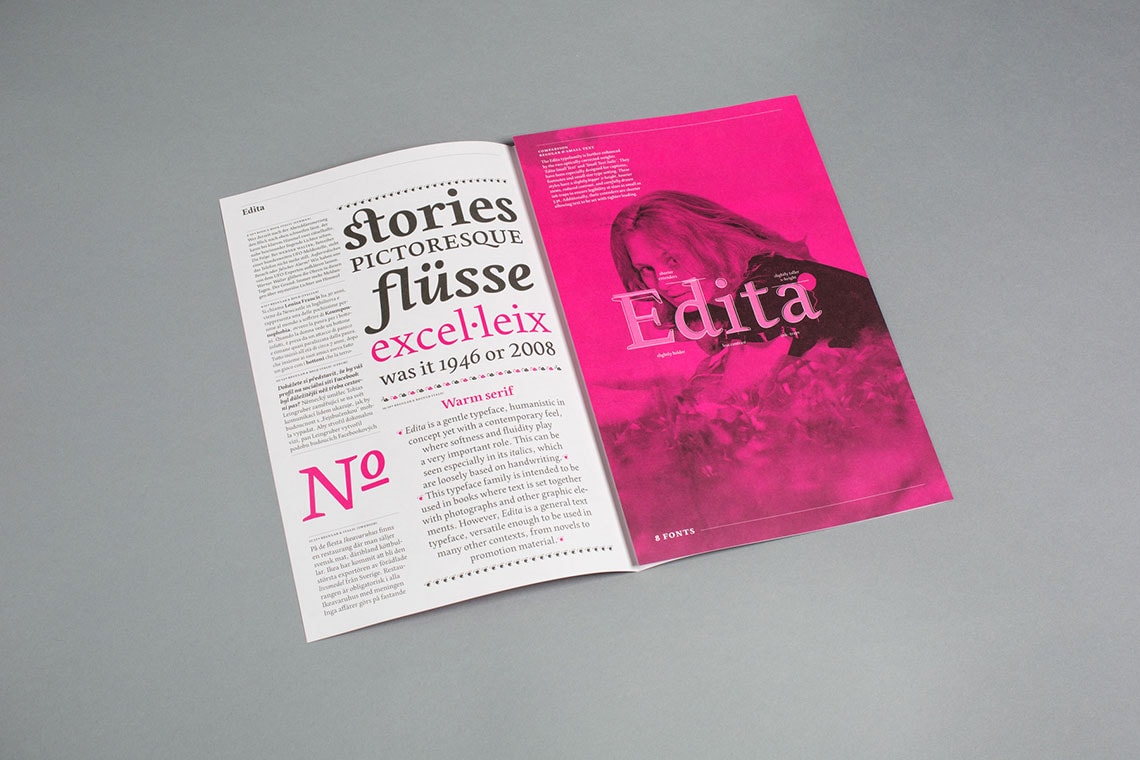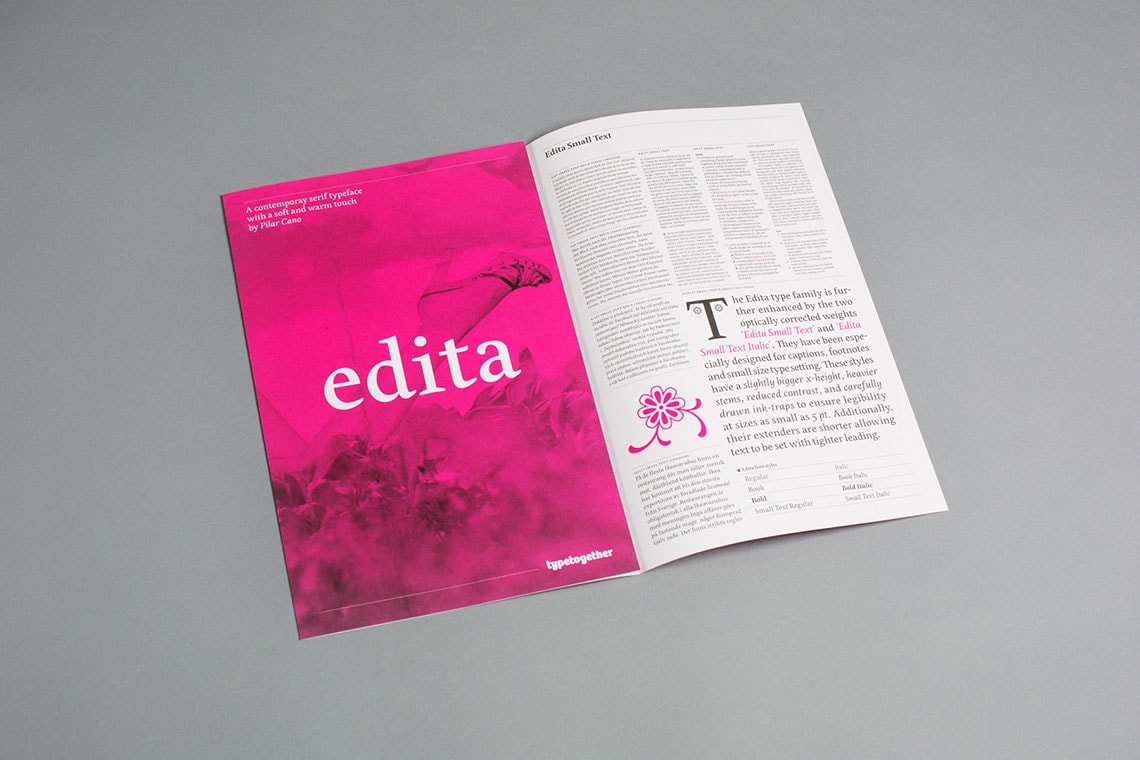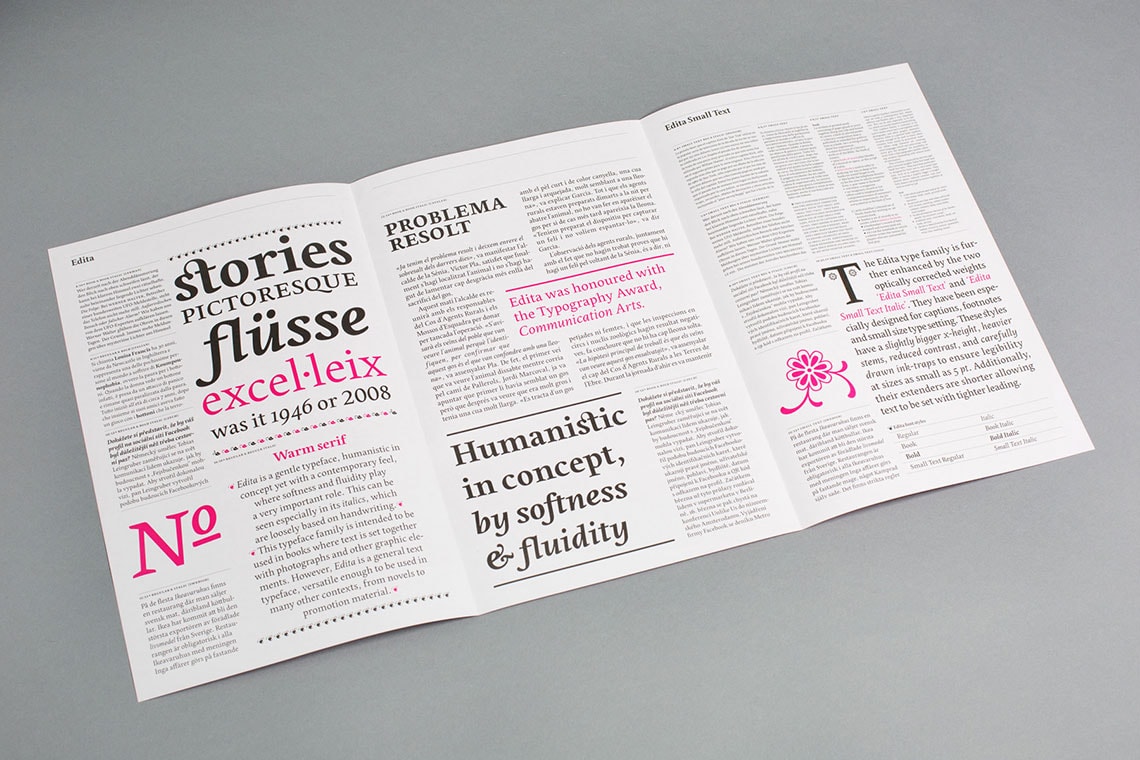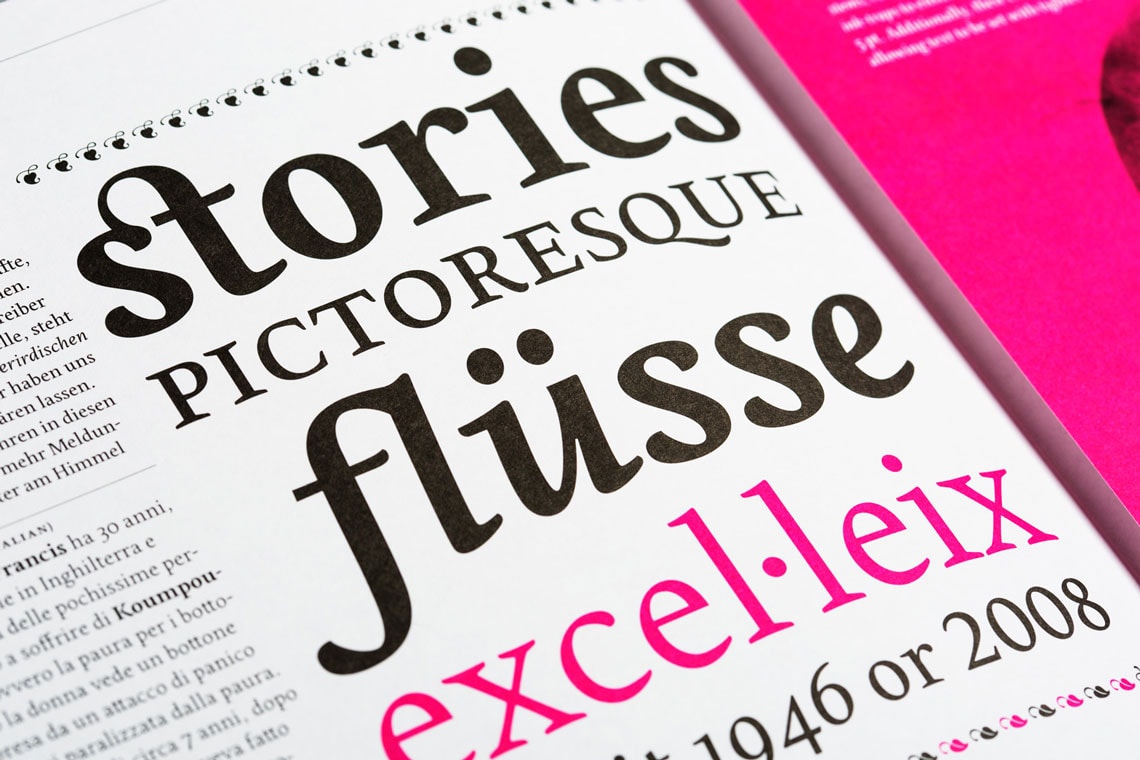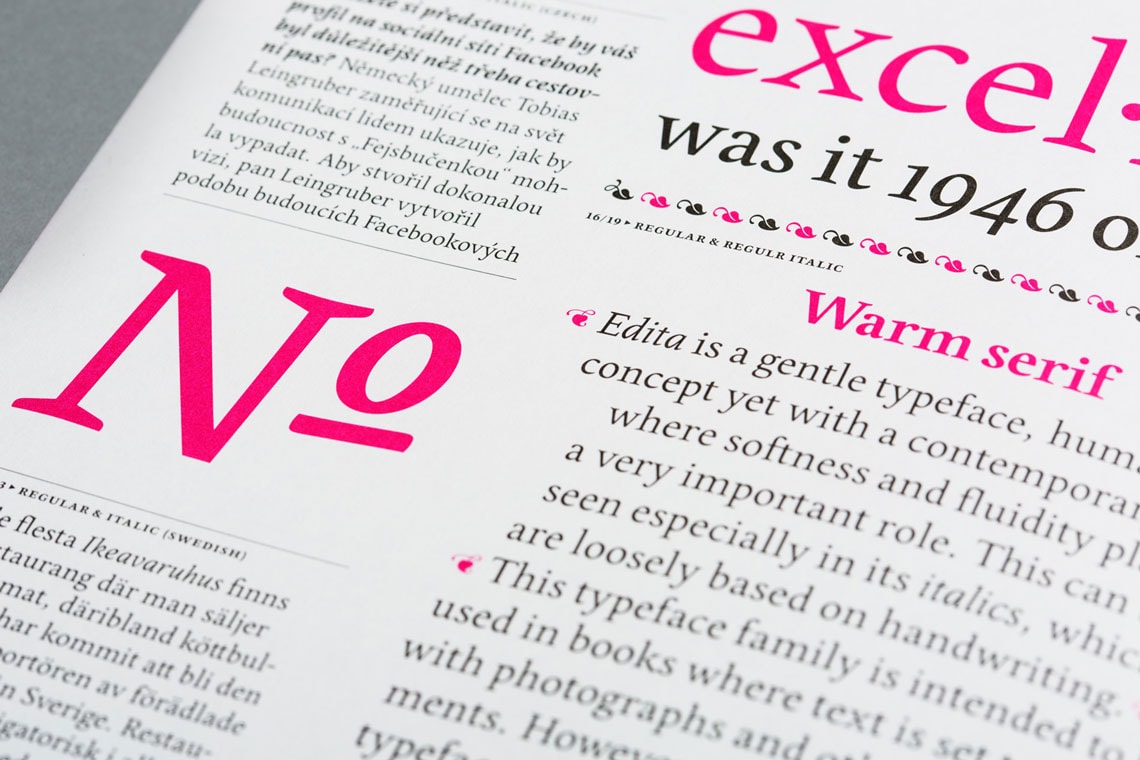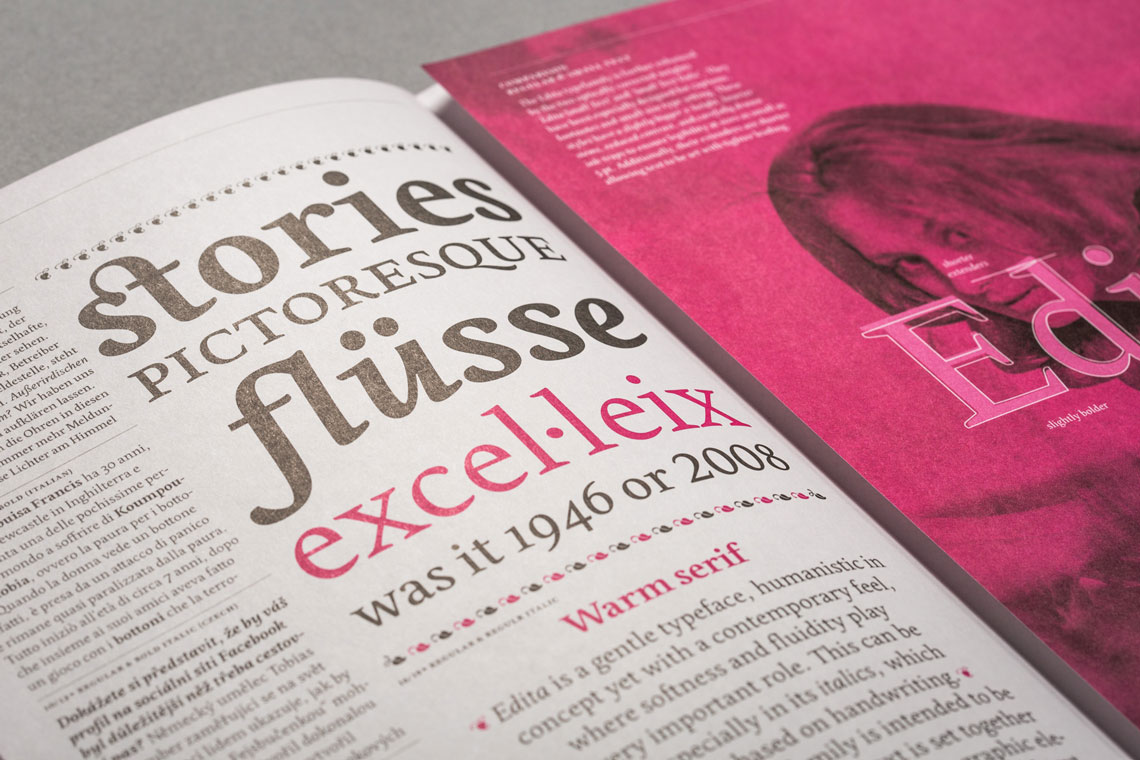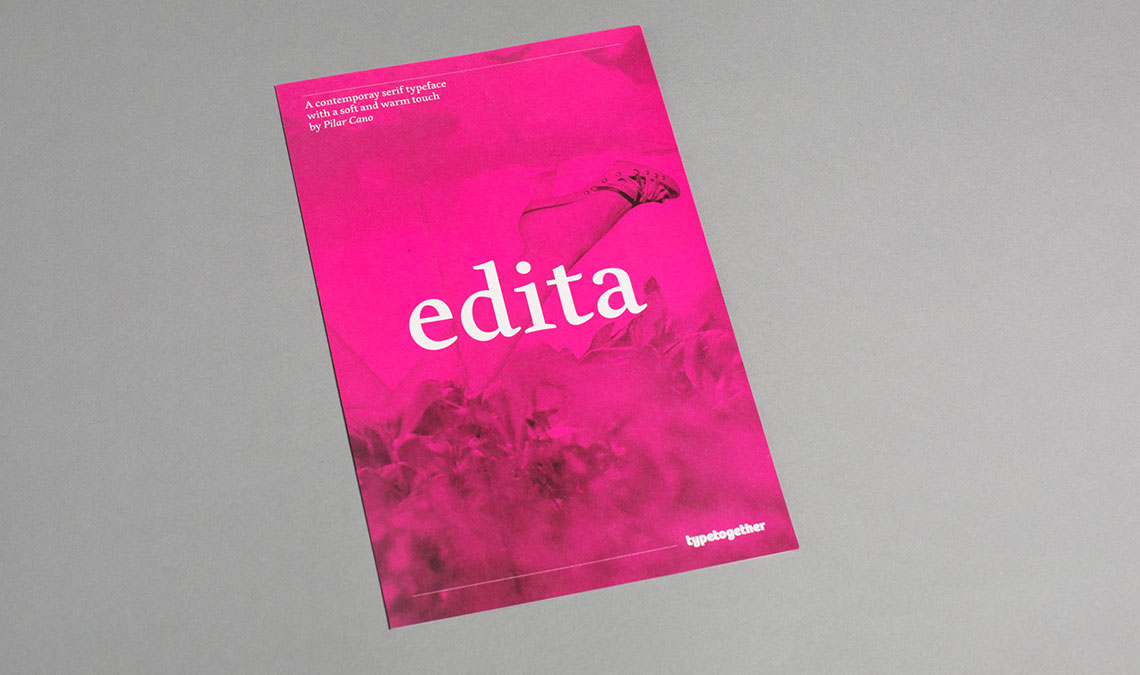
Edita specimen
Talented czech designer Olga Benešová designed this beautiful fold-out featuring Edita, the gentle, humanistic and a contemporary typeface by Pilar Cano. The specimen features samples of the full family including the optically corrected weights Edita Small and Small Italic. It folds out to 54×28 cm and has been printed by TA Tisk on Munken Lynx.